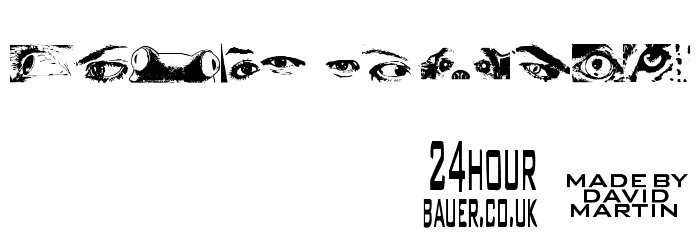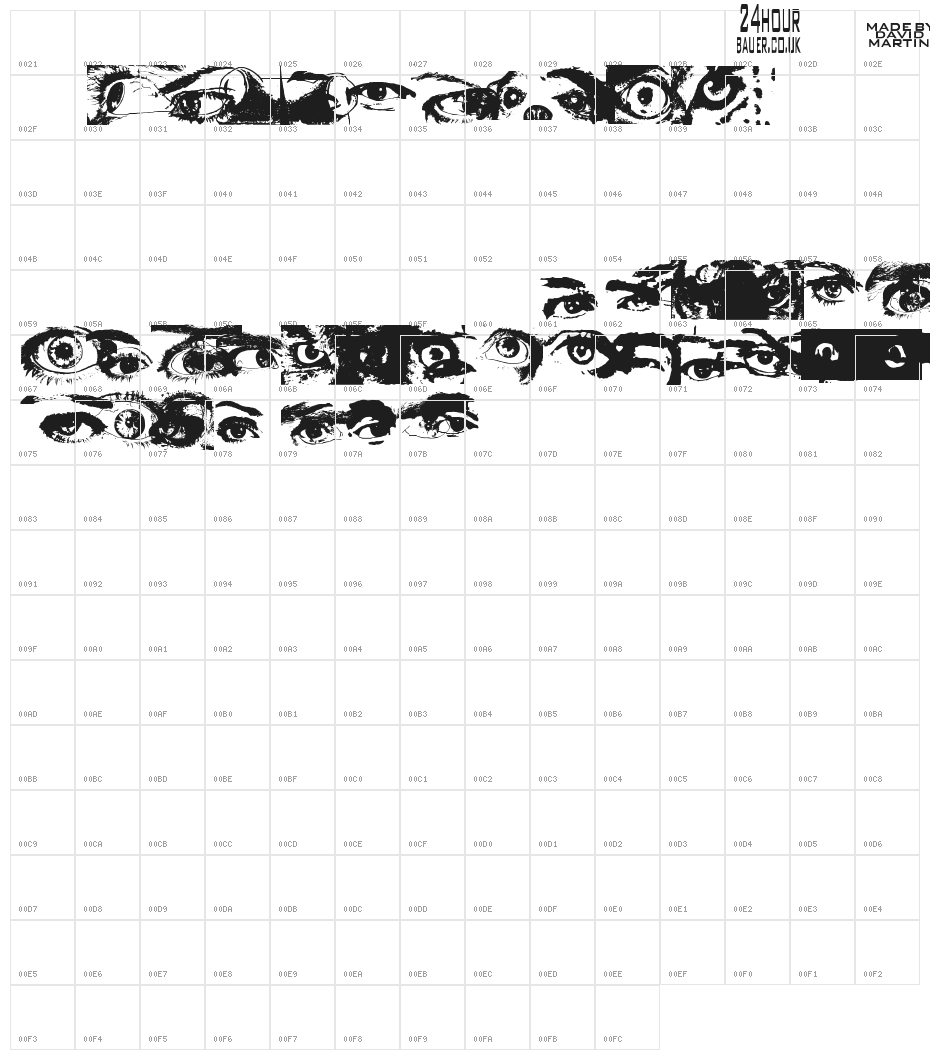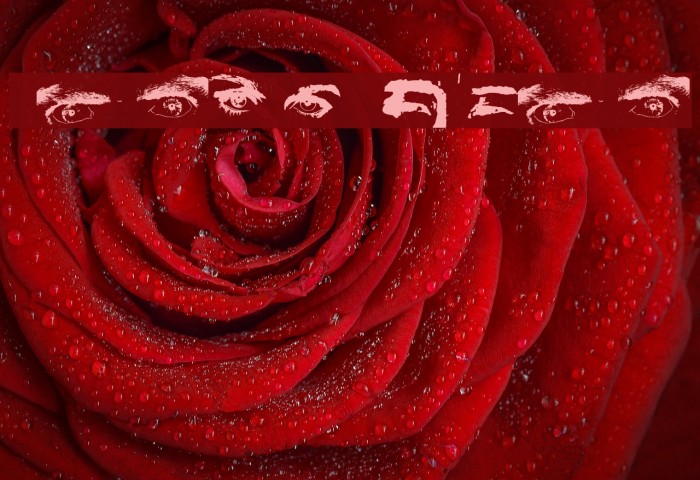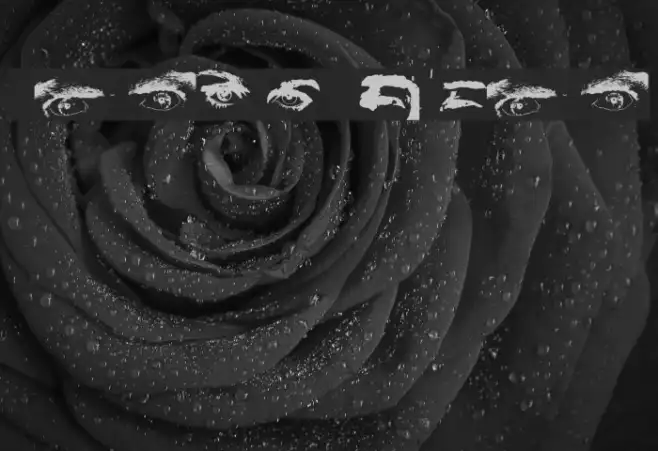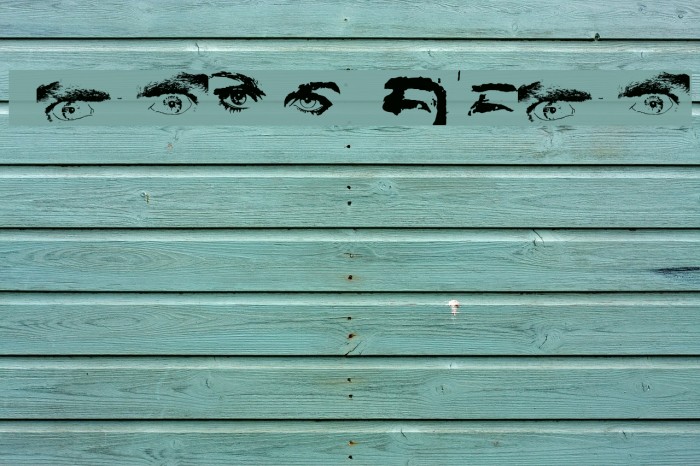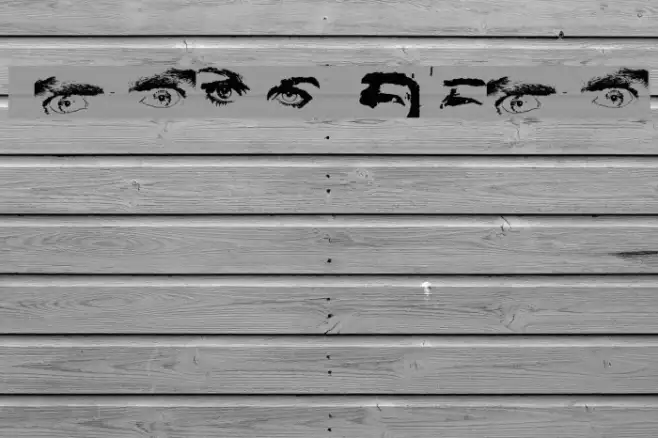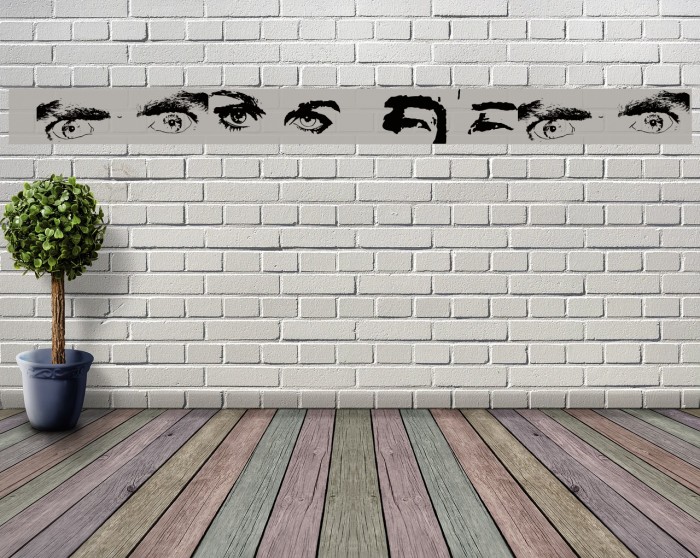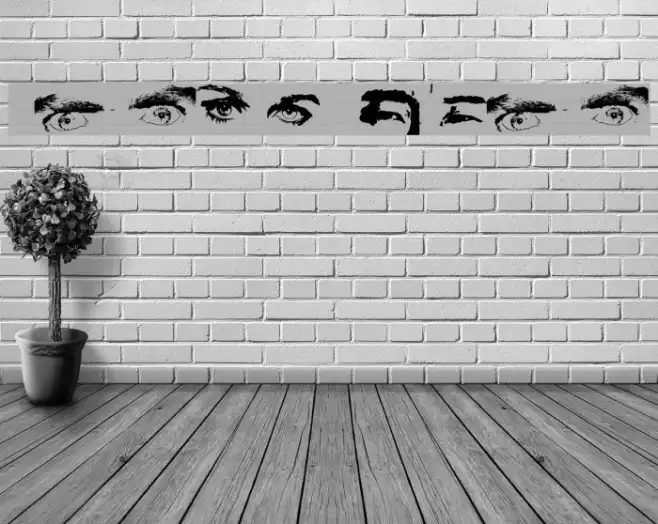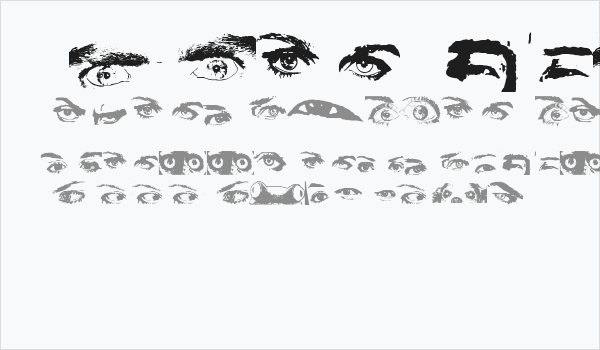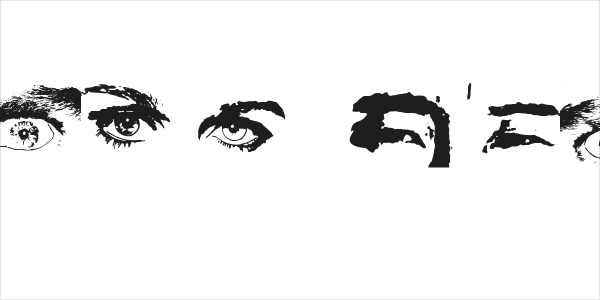
Eye Spy Font
Eye Spy Description
A highly decorative and illustrative font where each character is composed of stylized eye illustrations, creating a unique and surreal visual effect. The glyphs are detailed, with varying eye shapes and expressions, and are rendered in a bold, high-contrast black-and-white style.
| Overall Style | Decorative, Surreal, Artistic |
| Use Case | Headlines, Logos, Posters, Artistic projects |
| Proposed Projects | Posters, album covers, horror or mystery themed graphics, experimental art projects, editorial headlines. |